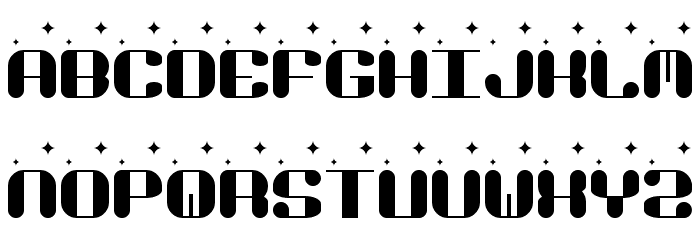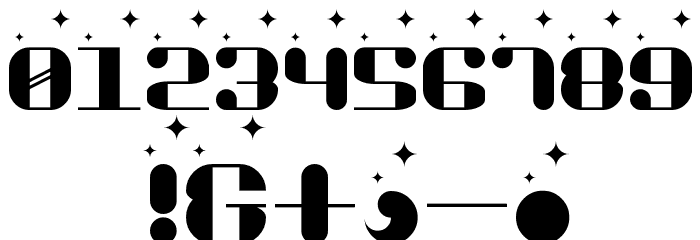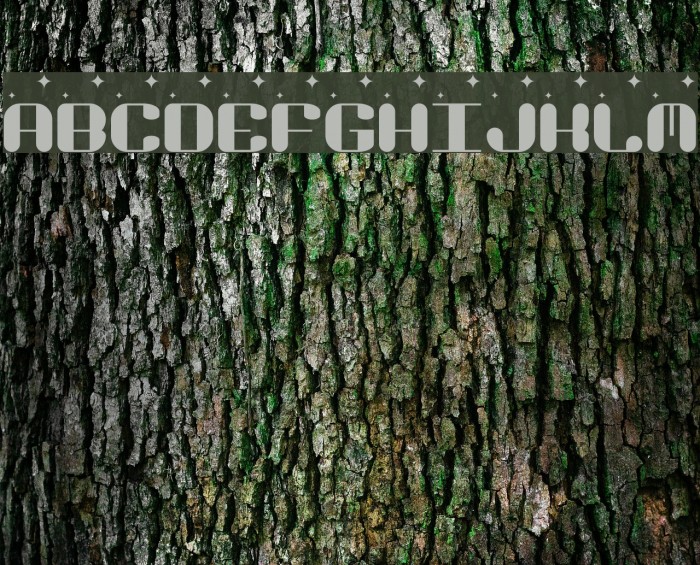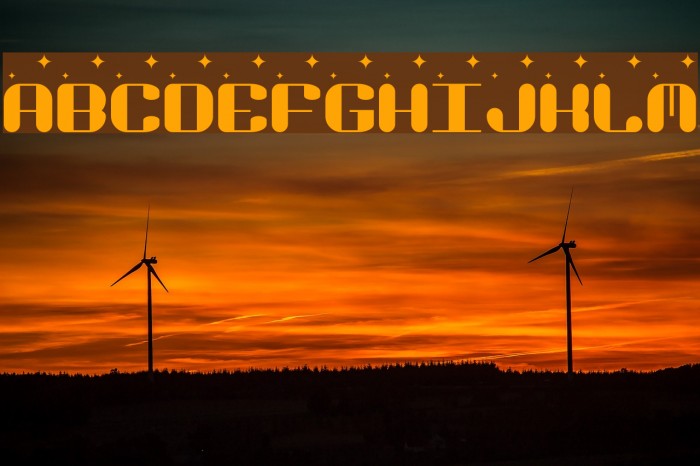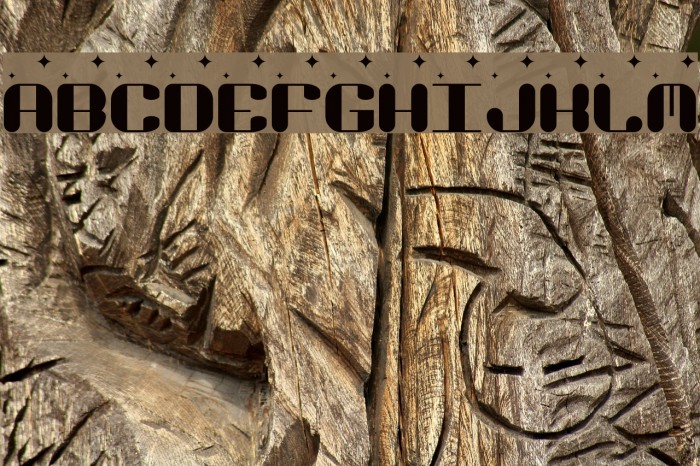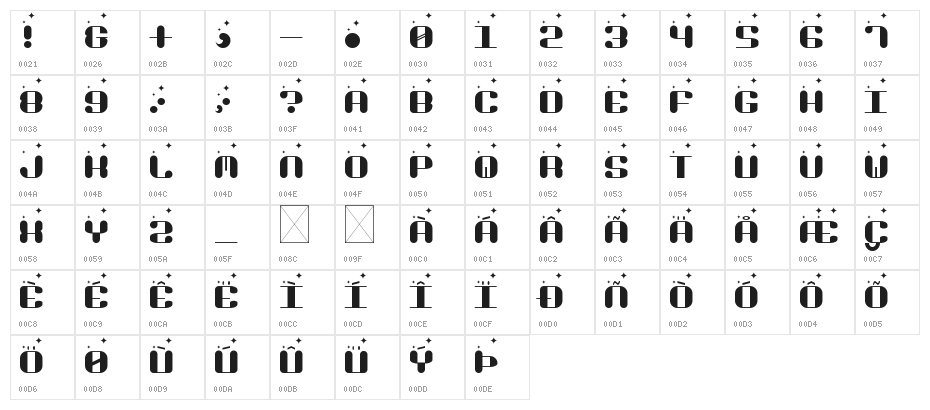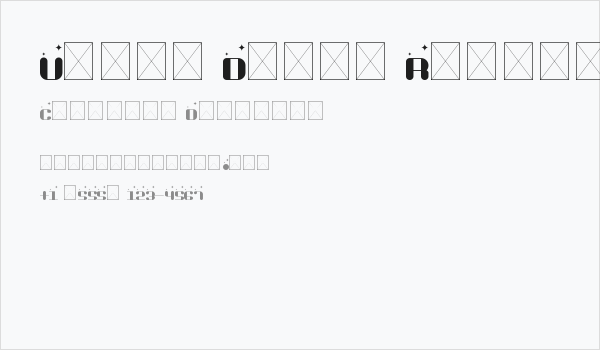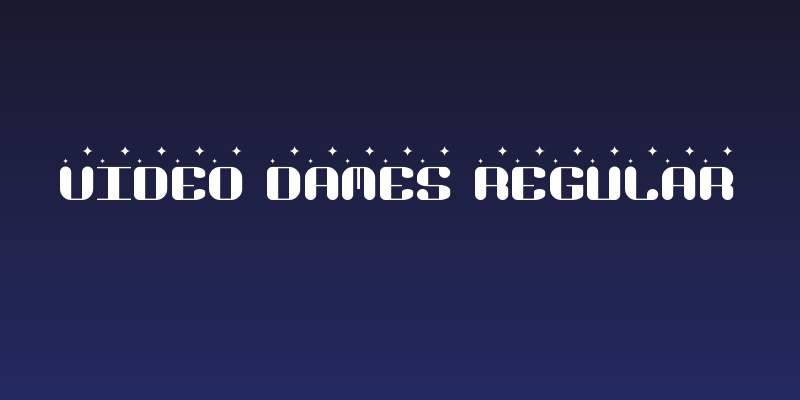
Video Dames Regular Font
This font features a bold, futuristic design with a unique geometric structure. The characters are constructed with a combination of solid and hollow sections, creating a striking visual contrast. The uppercase letters are particularly distinctive, with rounded edges and a consistent height that gives a uniform appearance. The numbers and special characters maintain the same bold style, ensuring cohesiveness across all elements. The design is reminiscent of retro-futuristic aesthetics, making it ideal for projects that require a modern yet nostalgic feel.
A bold, geometric font with a retro-futuristic style.
- Proposed Projects: Ideal for video game titles, sci-fi movie posters, tech branding, and futuristic-themed designs.
- Overall Style: Futuristic, Retro